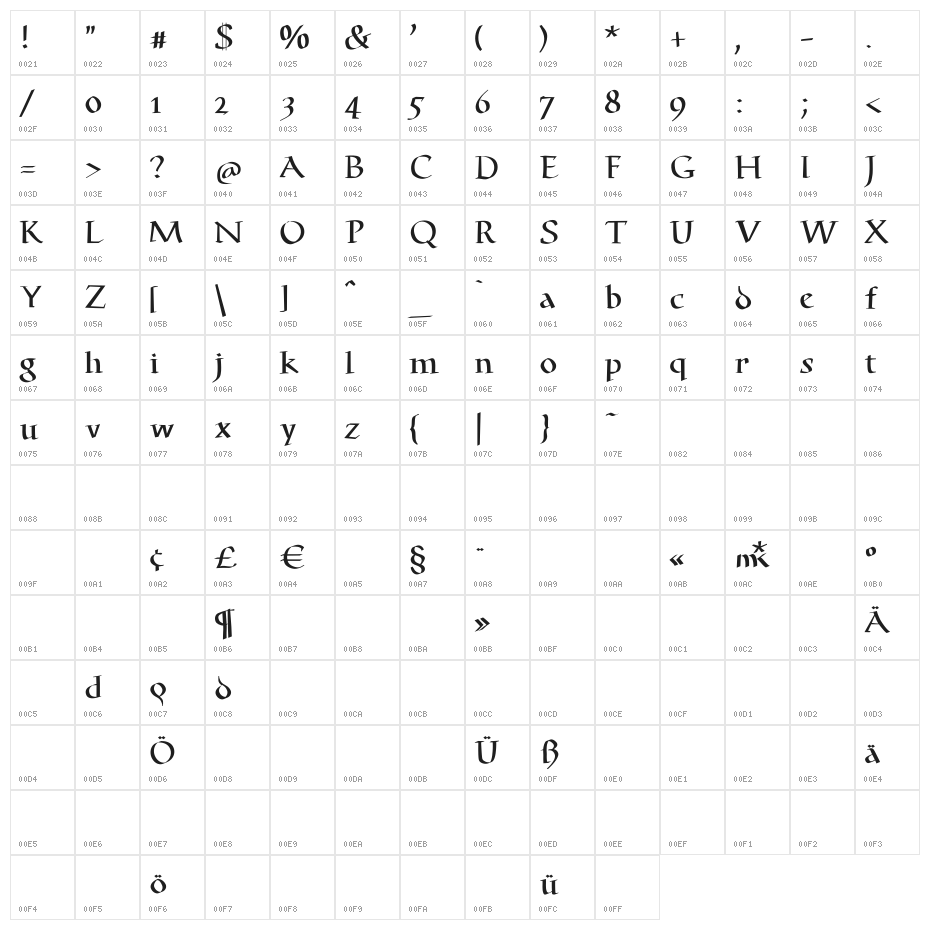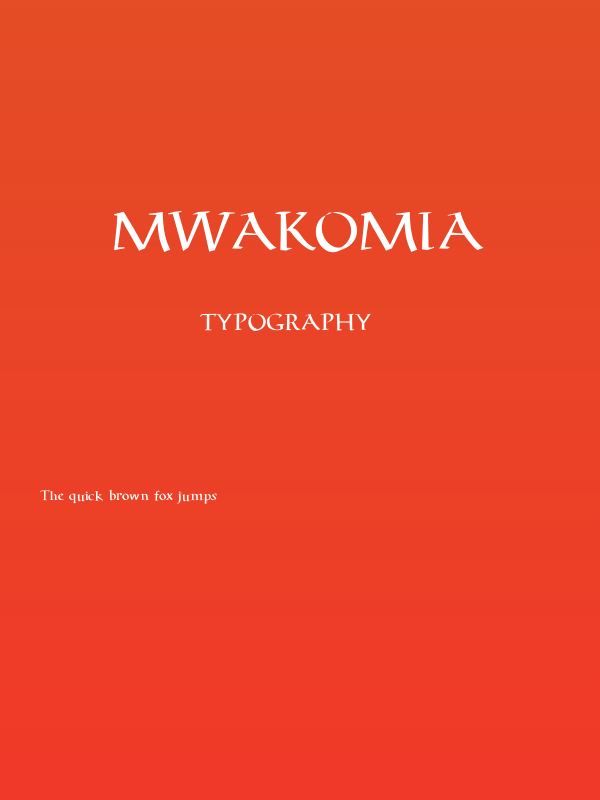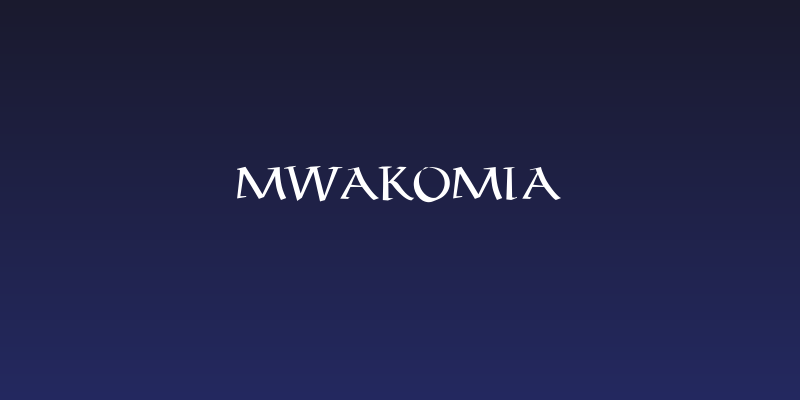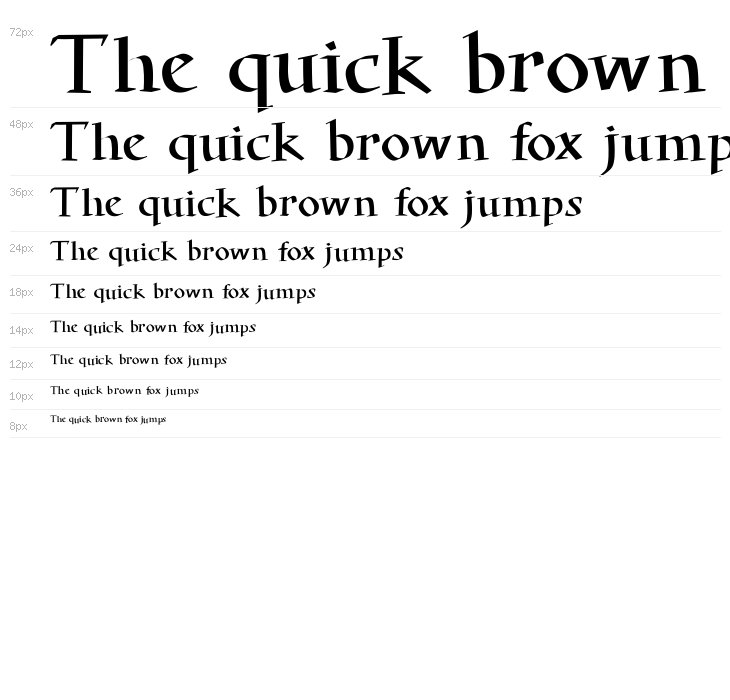
MWaKomia Font
MWaKomia Description
This font features a dynamic and elegant style with a calligraphic influence, characterized by its sharp serifs and flowing curves. The uppercase letters exhibit a strong presence with their pronounced angles and slightly exaggerated terminals, while the lowercase letters maintain a consistent rhythm with their smooth, rounded forms. The numerals are distinct and bold, complementing the overall aesthetic with their balanced proportions. Special characters are crafted with attention to detail, ensuring they integrate seamlessly with the rest of the typeface. This font's unique blend of traditional and modern elements makes it versatile for various design applications.